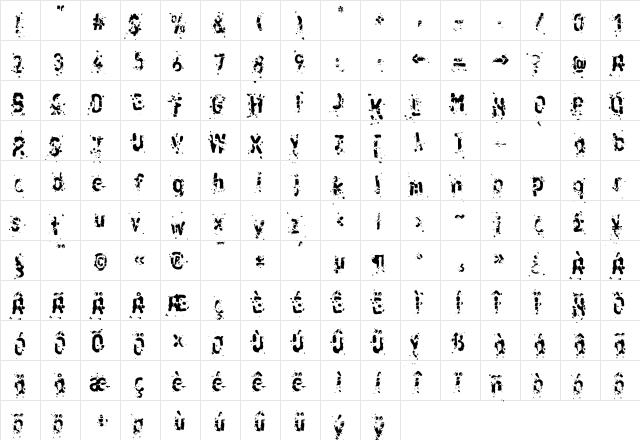
LTRussischBrot EatTwo Regular
Design Context for LTRussischBrot EatTwo Typeface
LTRussischBrot EatTwo is a composed and adaptable typeface that performs quietly and consistently across a wide range of design contexts.
Pro Tip: Use LTRussischBrot EatTwo in both headline and body roles to test its range before committing to a single application.